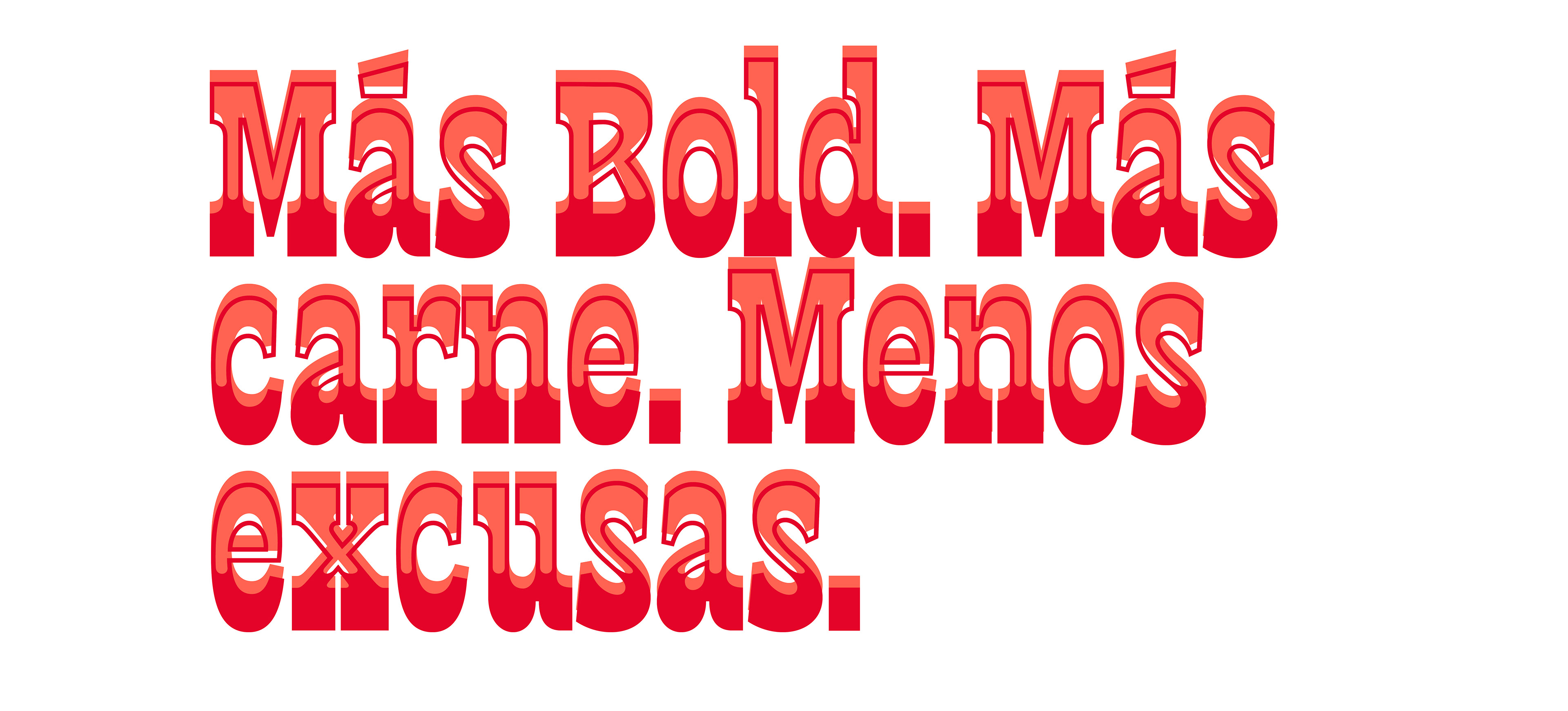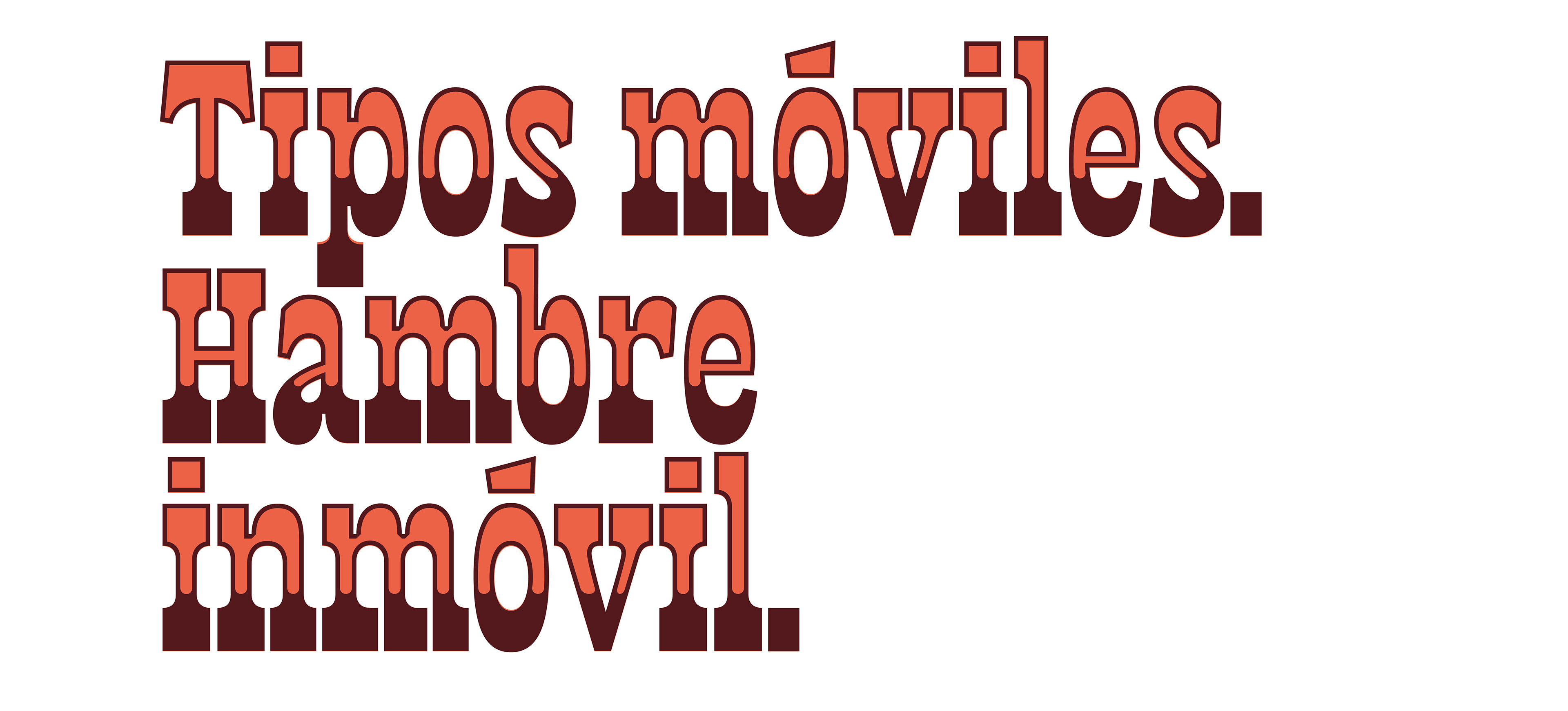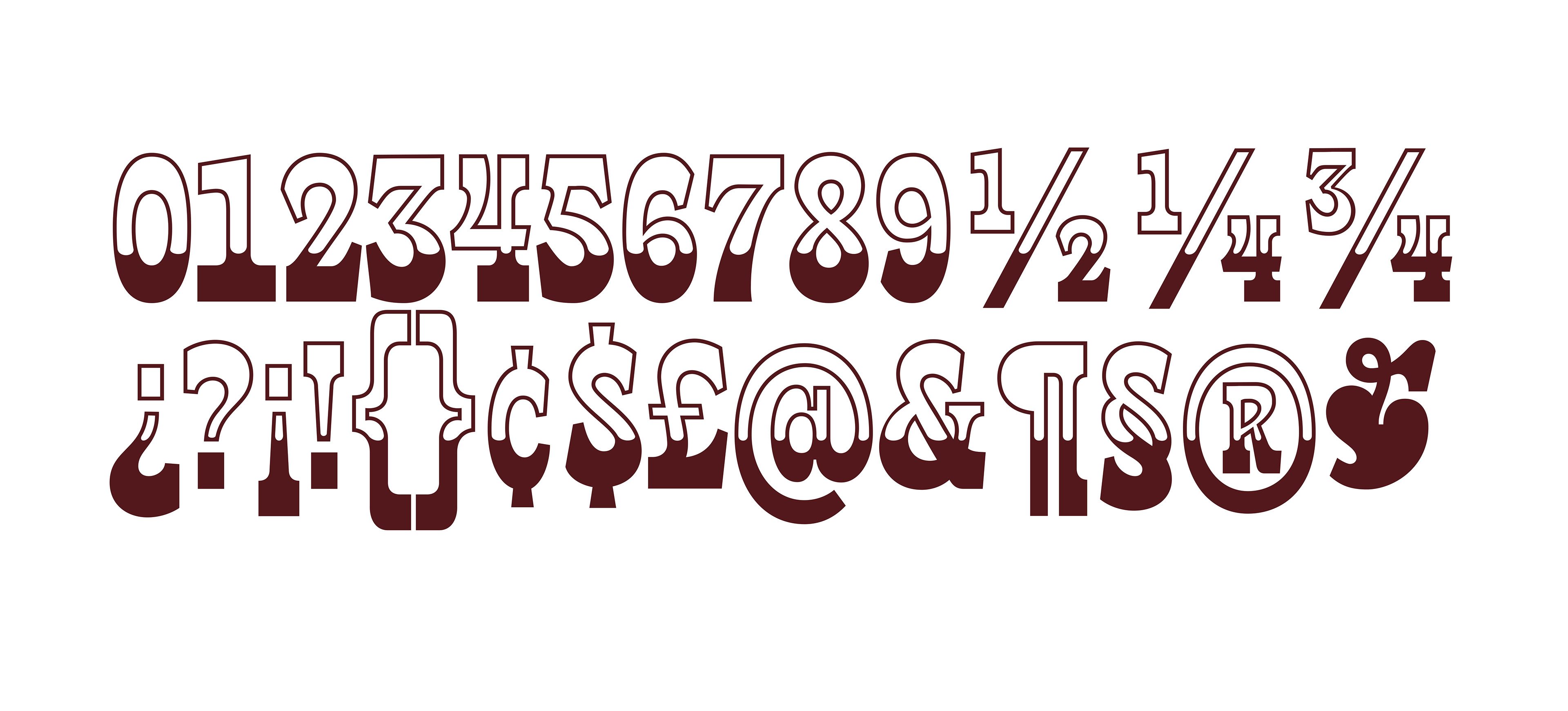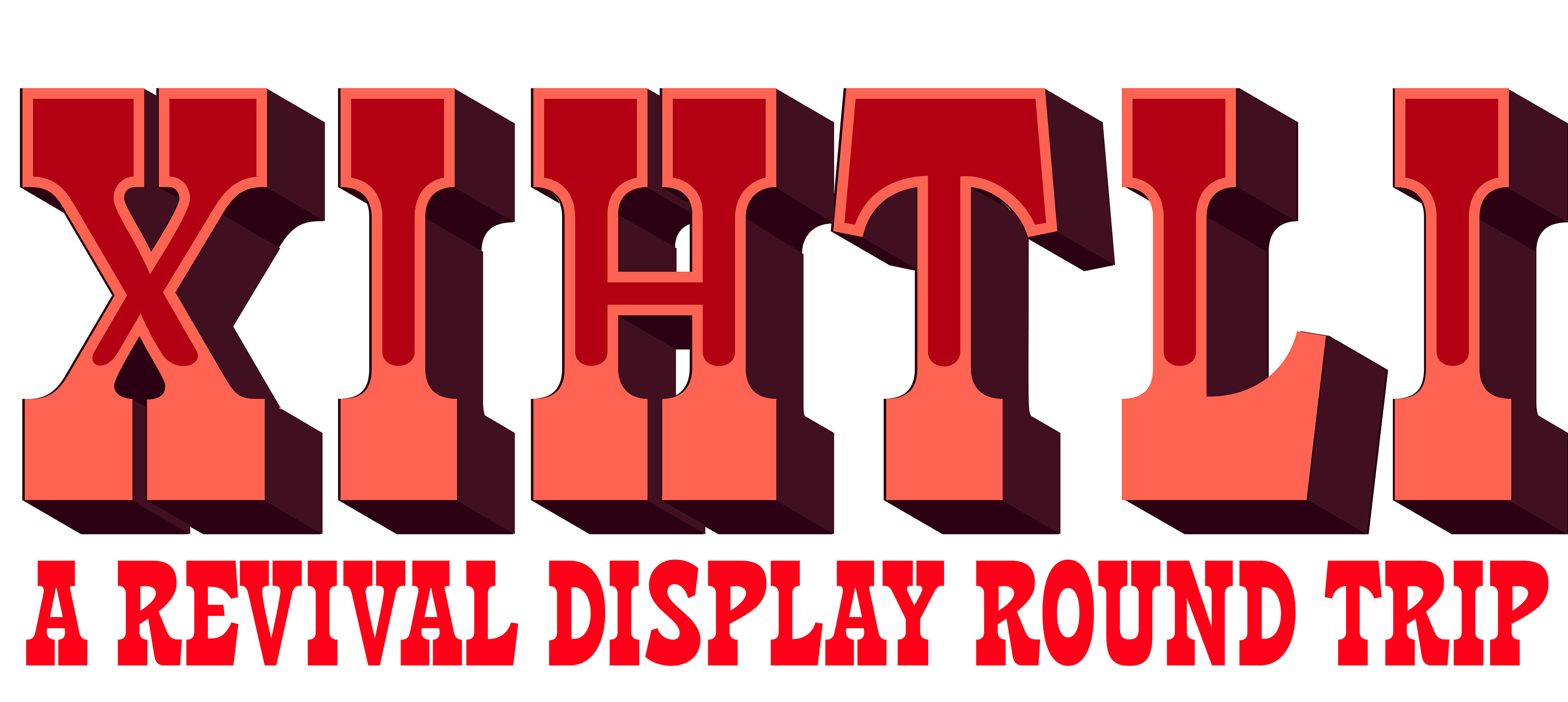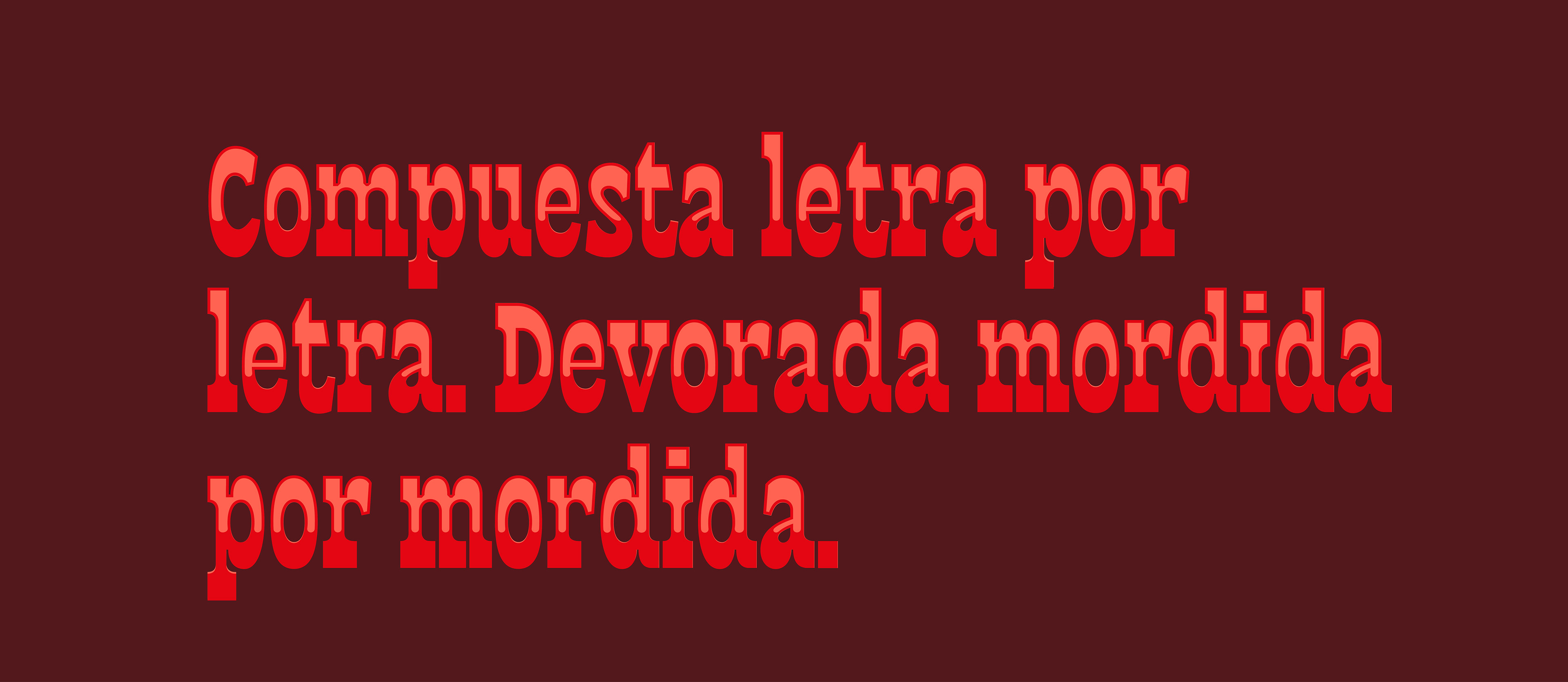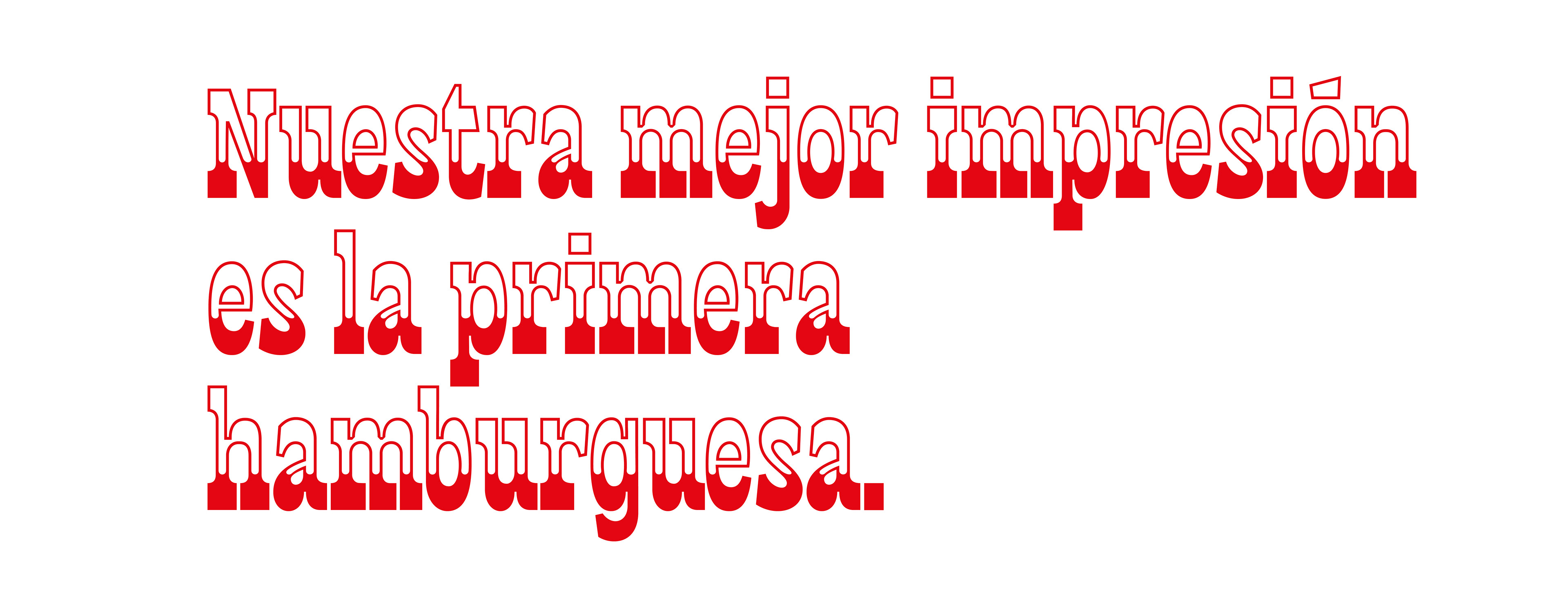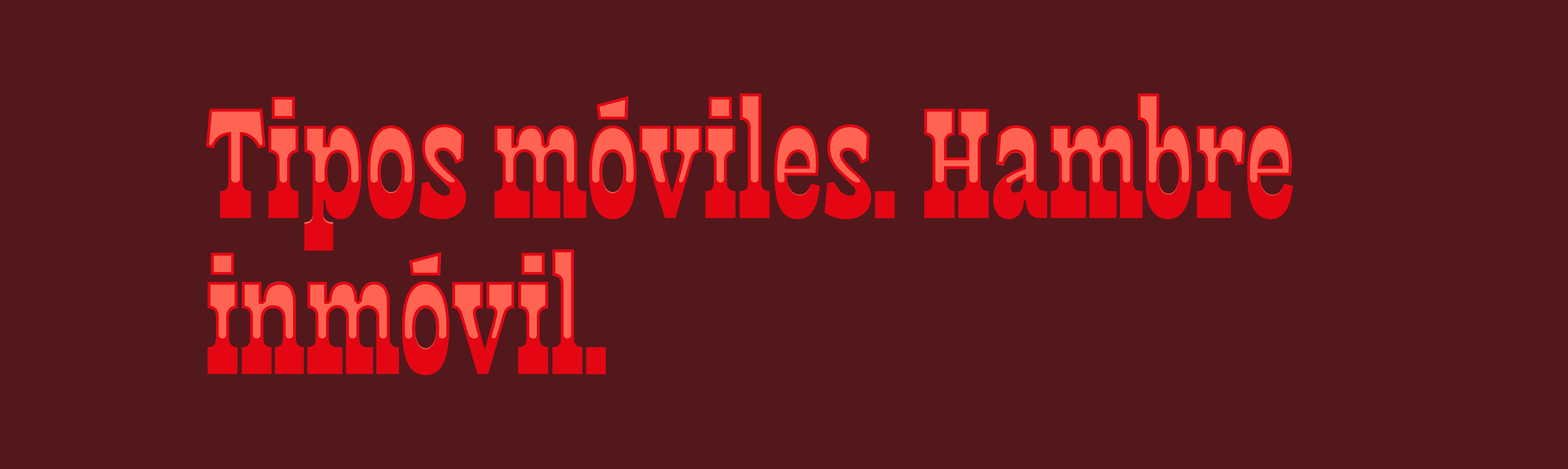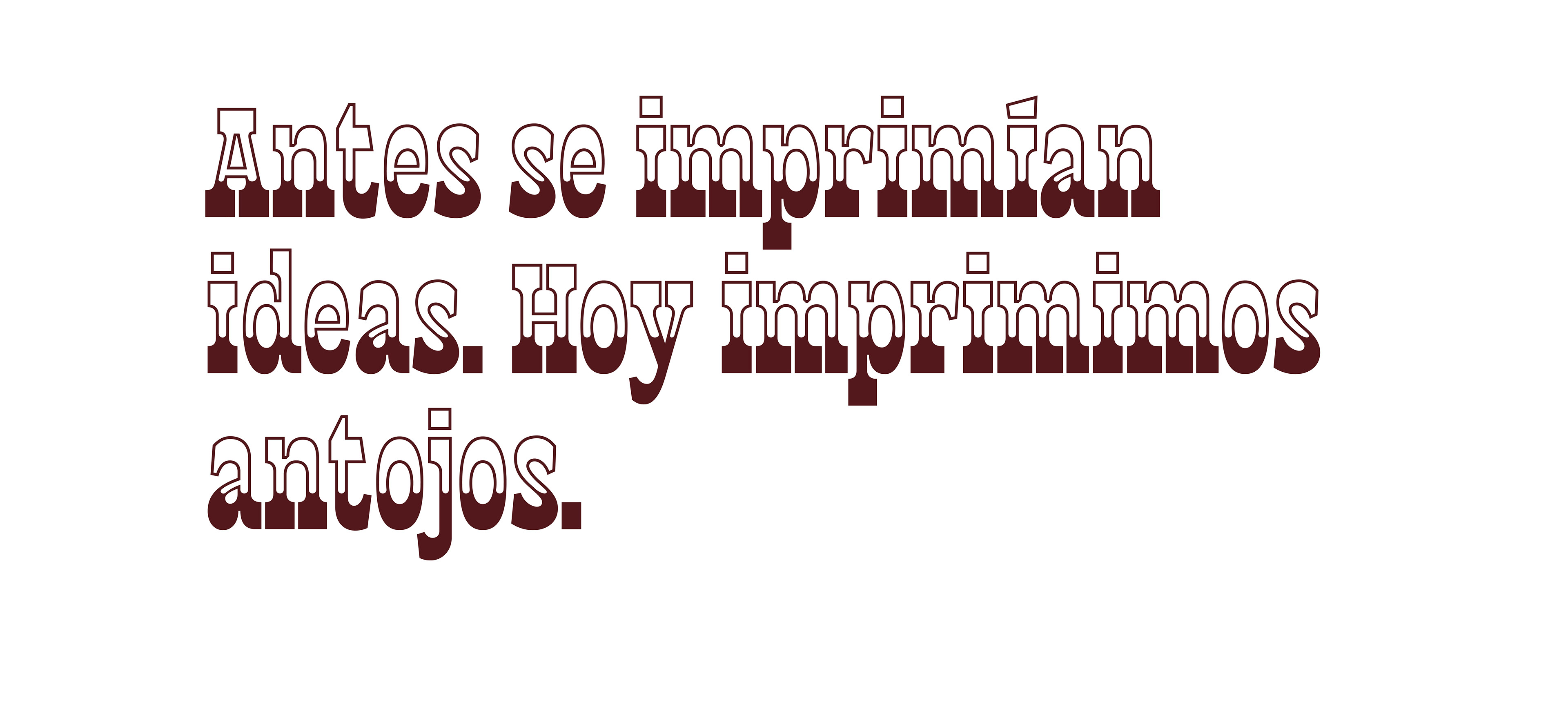
Commissioned by Rodrigo Ortega from Ombligo del Libro, this project is a typographic revival of Espécimen Roman Scherer.
While working at Tipastype in 2018, I designed and developed Xihtli, a typographic revival that began with the interpretation of the original uppercase characters. Since no visual references for the lowercase alphabet were available at the time, the lowercase was reconstructed through a careful analysis of the capitals’ structural logic, proportions, and formal principles, aiming to preserve the original typeface’s character while extending it into a complete system.
Several months after the project was completed, the original specimen containing the lowercase characters was rediscovered. Comparing both versions revealed a remarkable consistency in their underlying structure and construction system. The main differences lie in deliberate design decisions, including a slightly higher x-height and subtle proportional refinements, while preserving the original typeface's visual DNA and historical character.